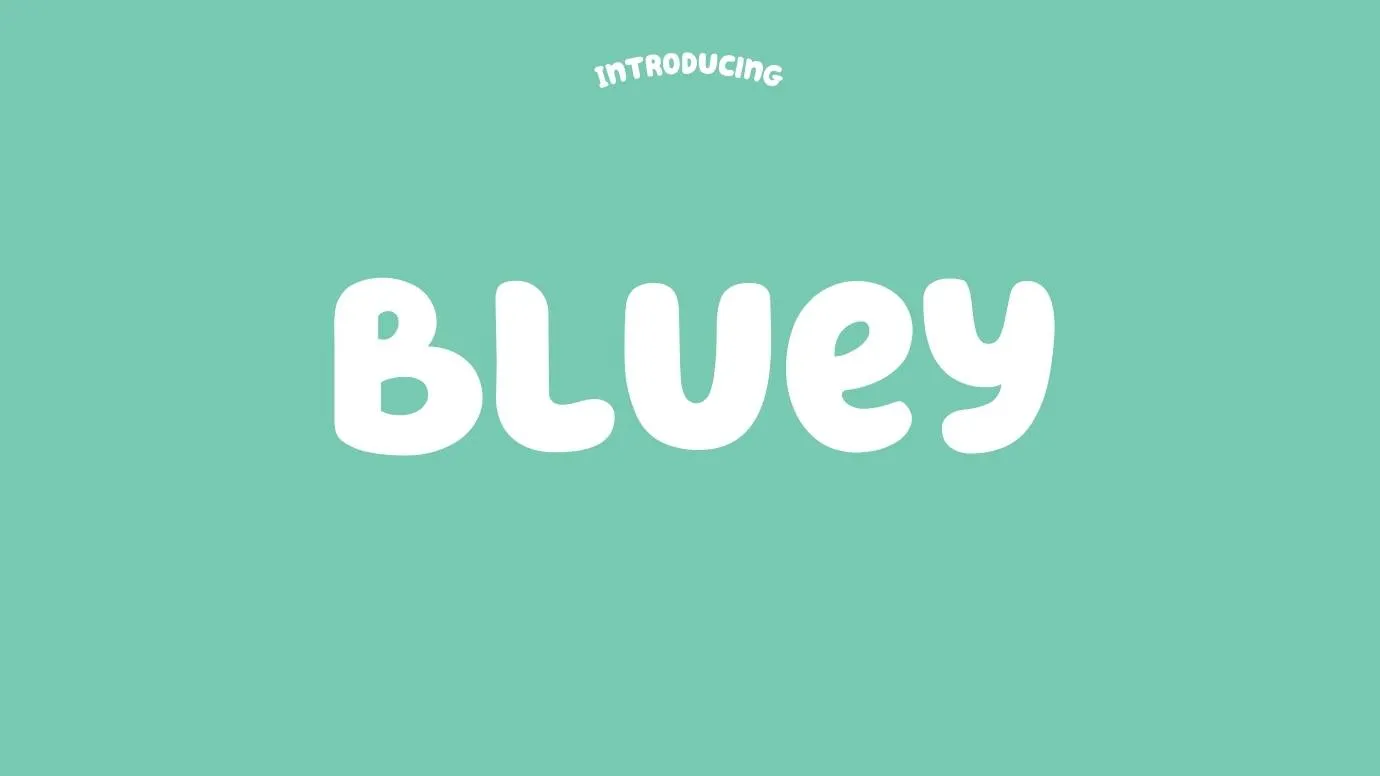
Bluey Font Family is a modern texture that is known under the name Bluey Font. This awesome texture lies in the category of the display family of fonts. Adam Cruickshank is a famous Australian font manufacturer who worked on the creation of this typography.
Basically, this awesome texture was developed for the logo of an Australian children’s television series. Neon Ballroom font is similar to this family of fonts in different terms.
Bluey Font